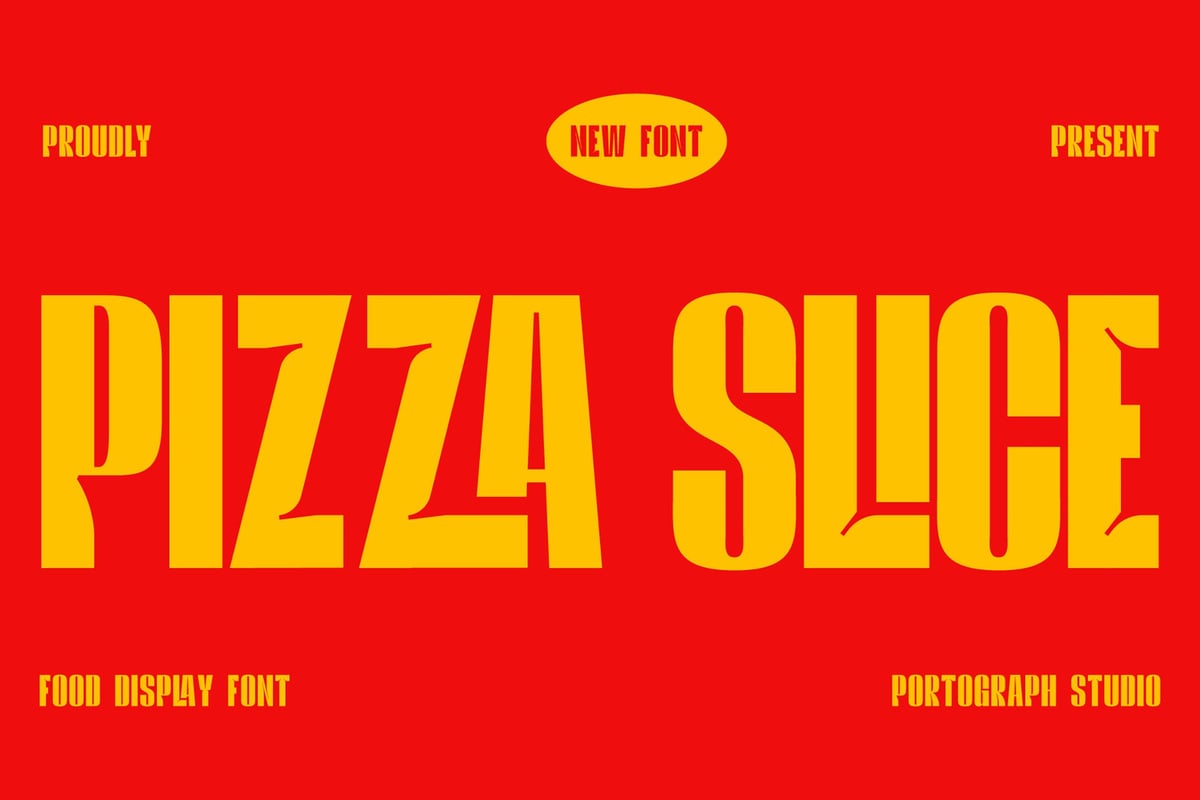
Pizza Slice – Food Font
Grab attention instantly with Pizza Slice – a bold, condensed display font inspired by street food culture and retro poster design. This playful typeface features tall condensed shapes with strong weight and expressive character, making it perfect for food packaging, social media advertisements, and bold editorial layouts. Pizza Slice brings authentic flavor, personality, and visual impact to your typography projects. Package includes: OTF format TTF format WOFF2 format Features: Upp...